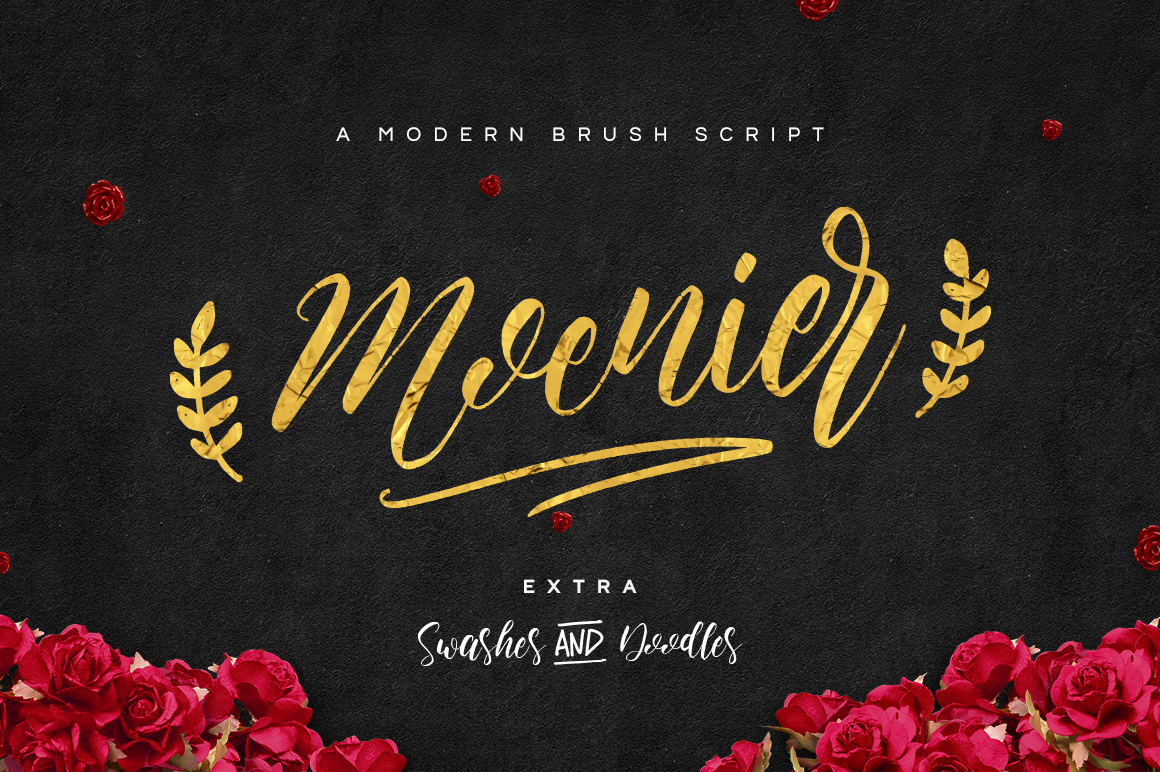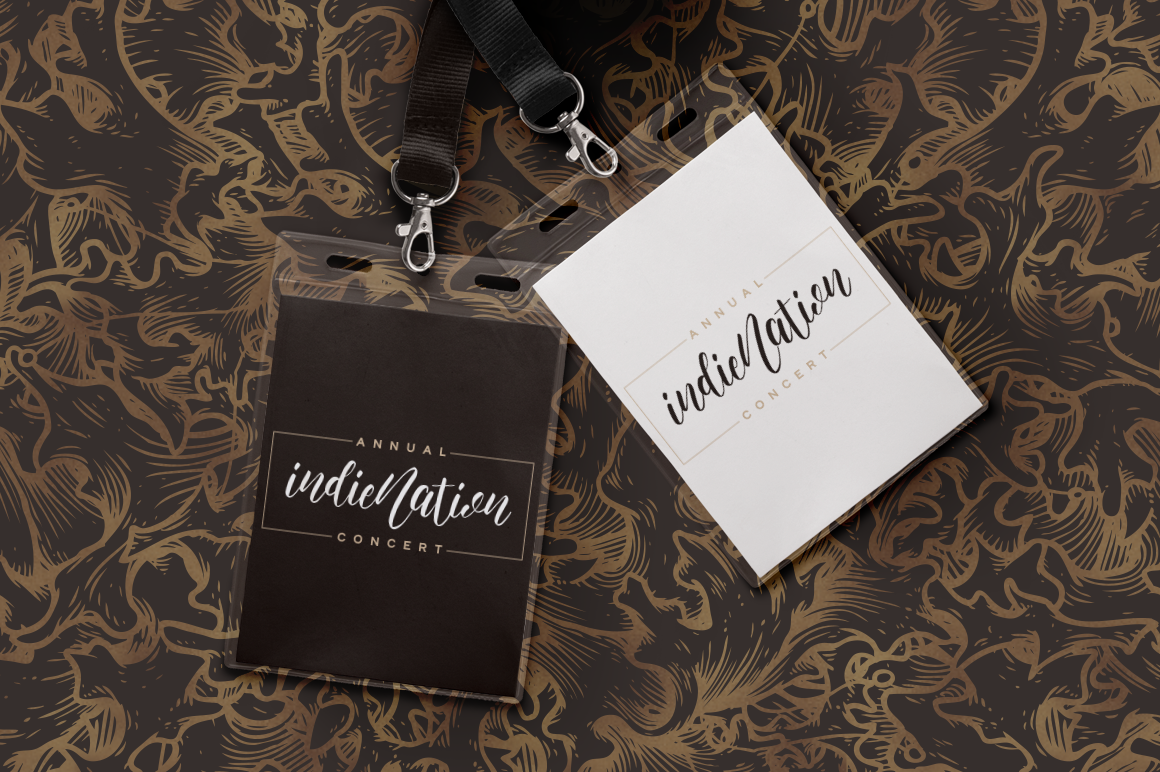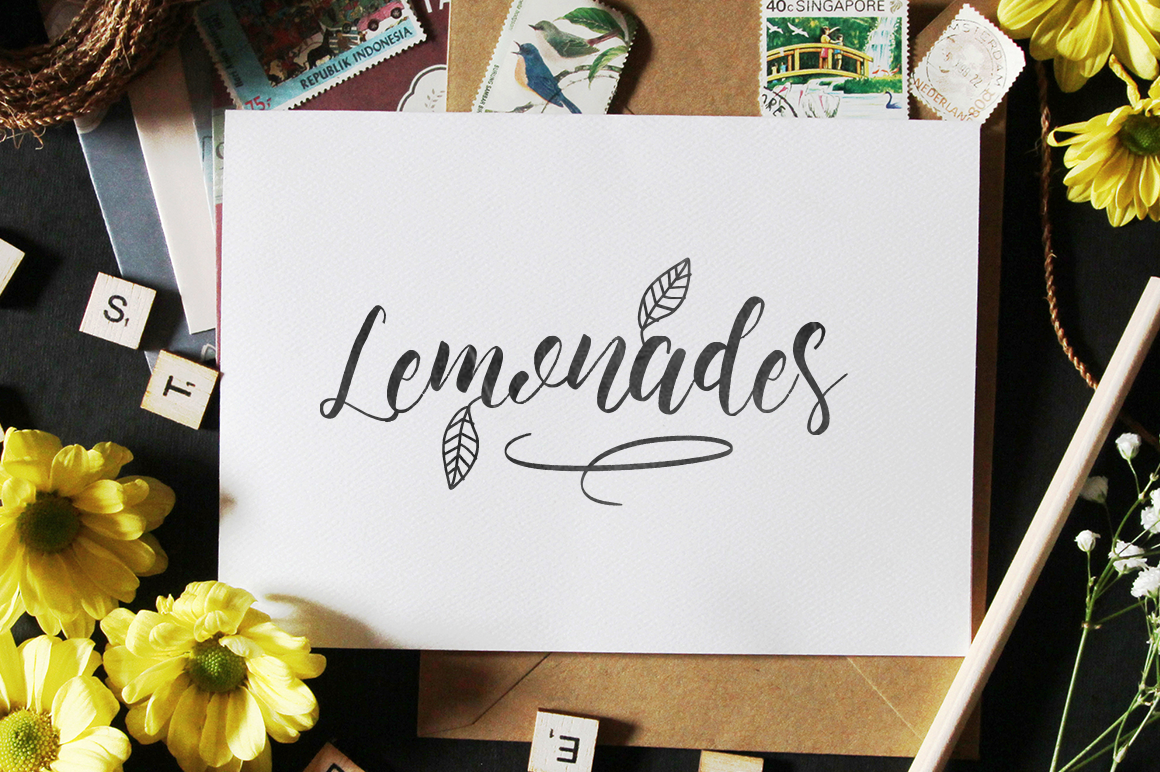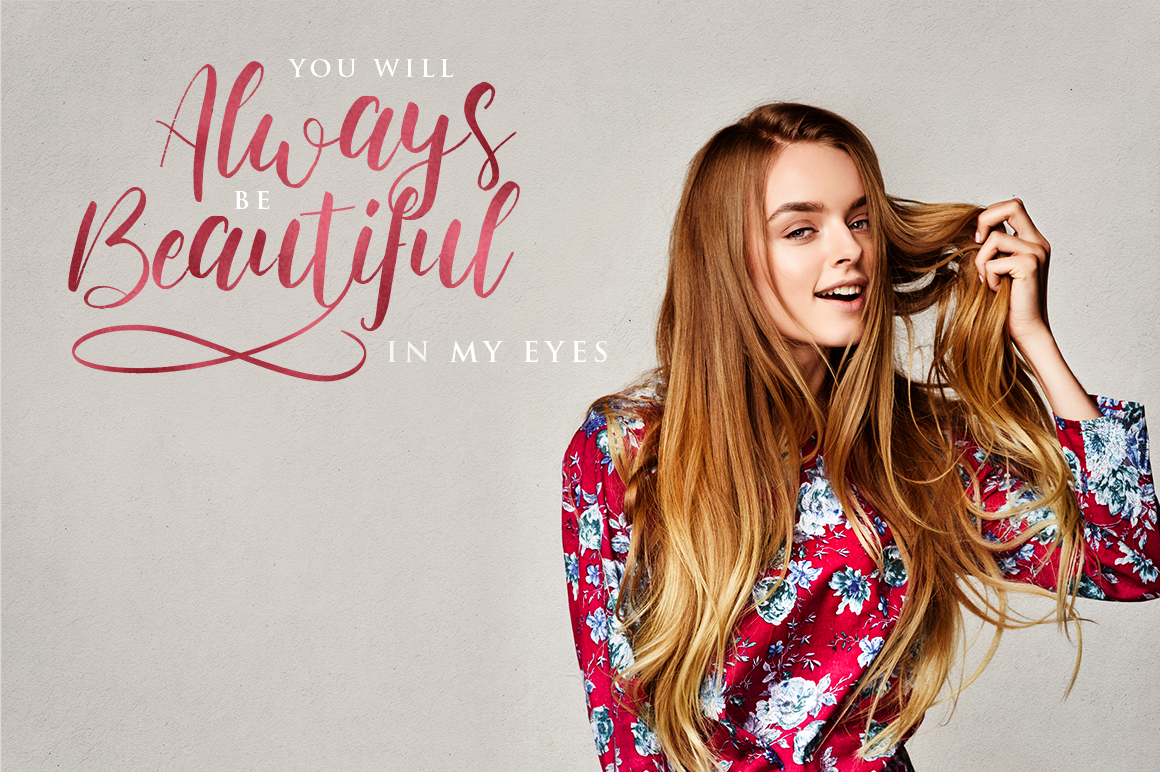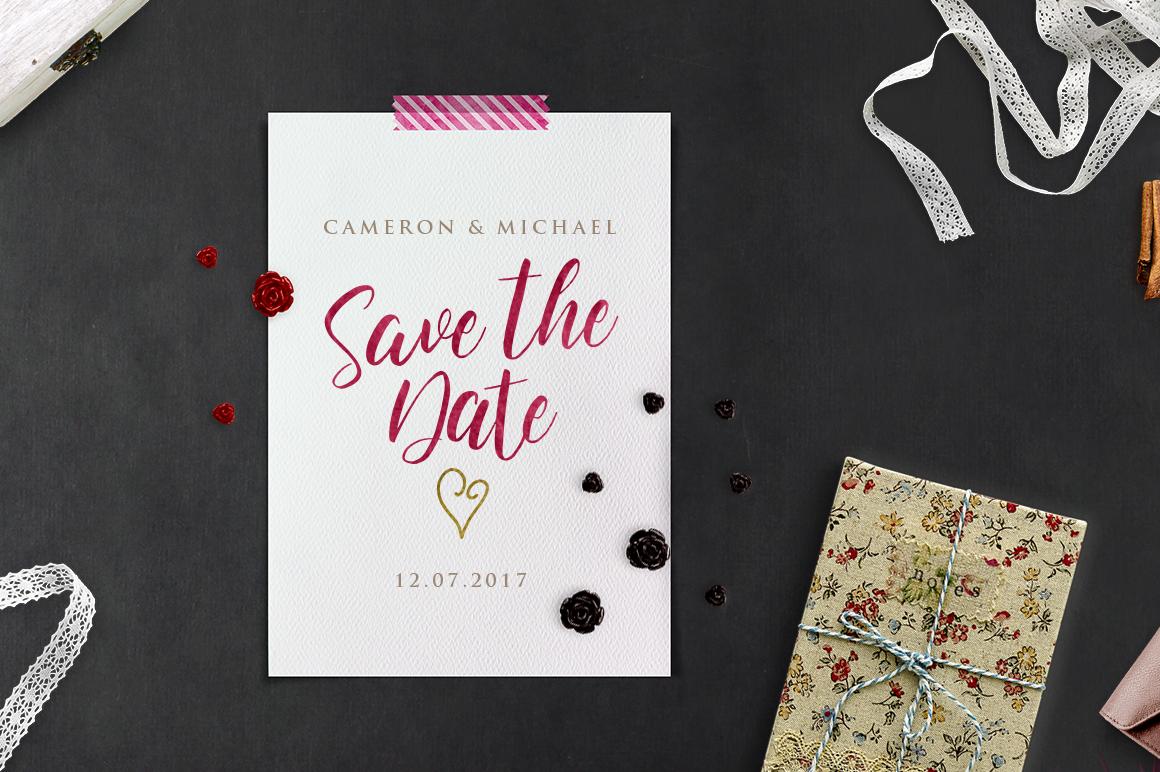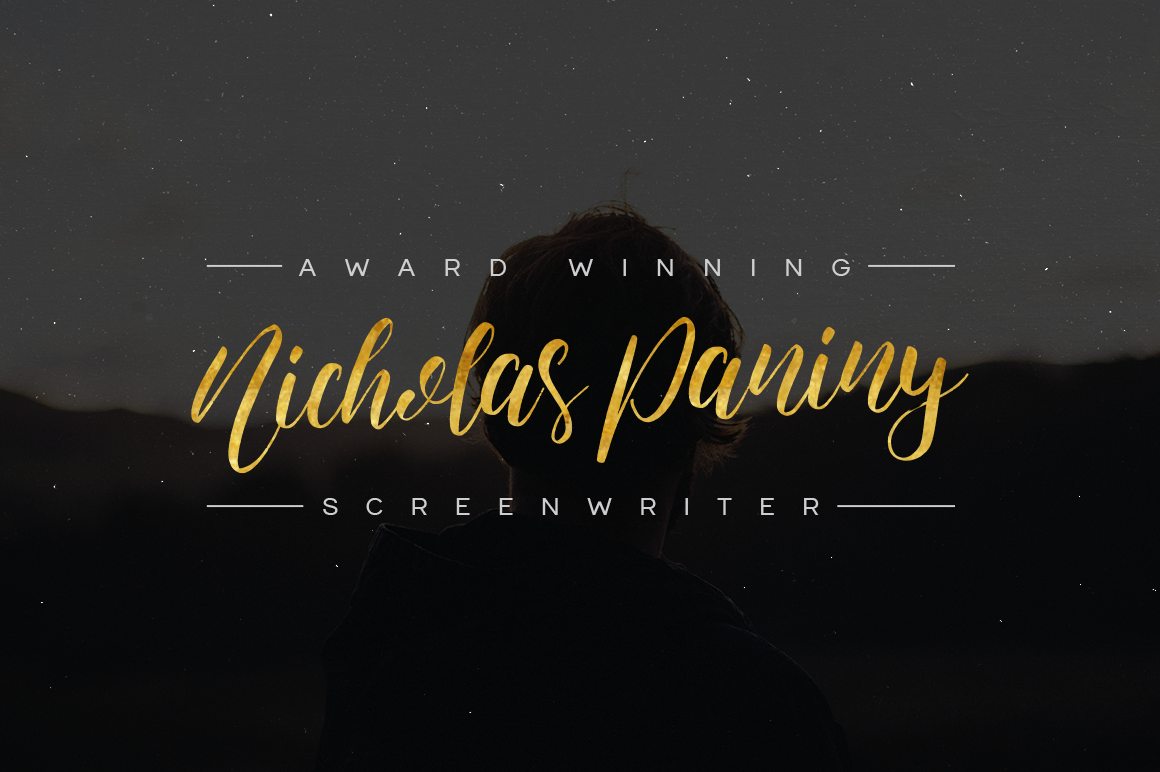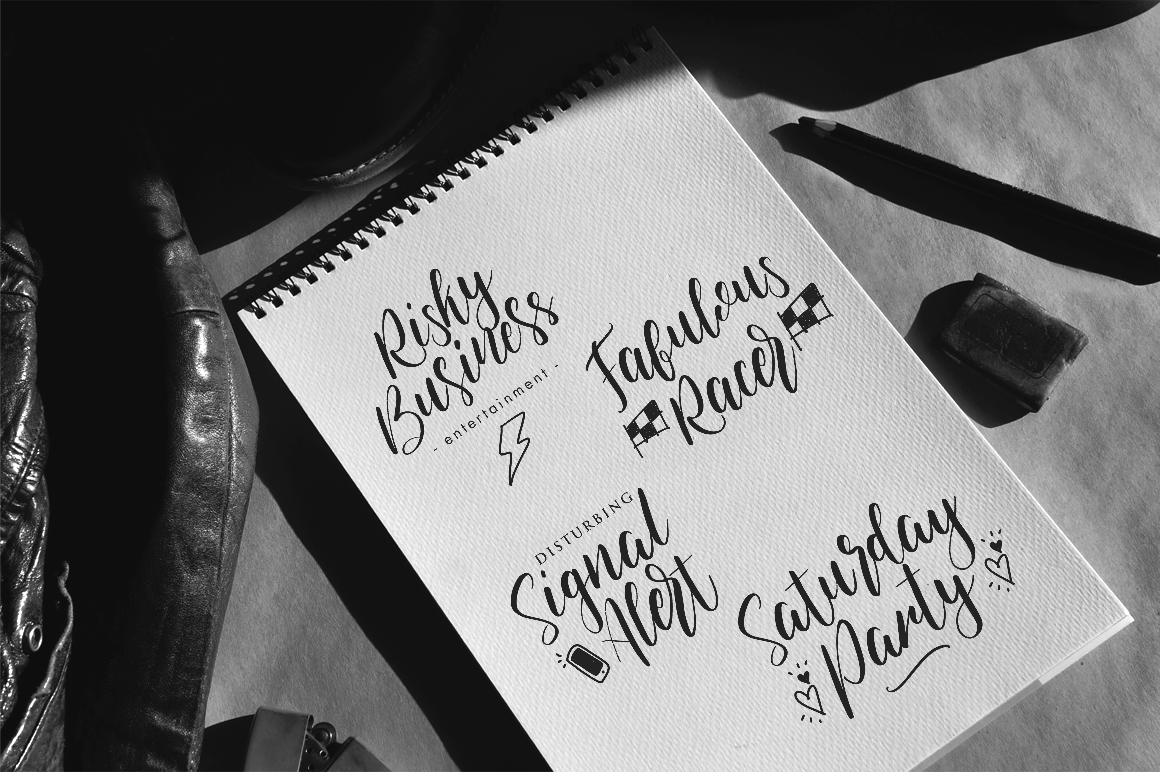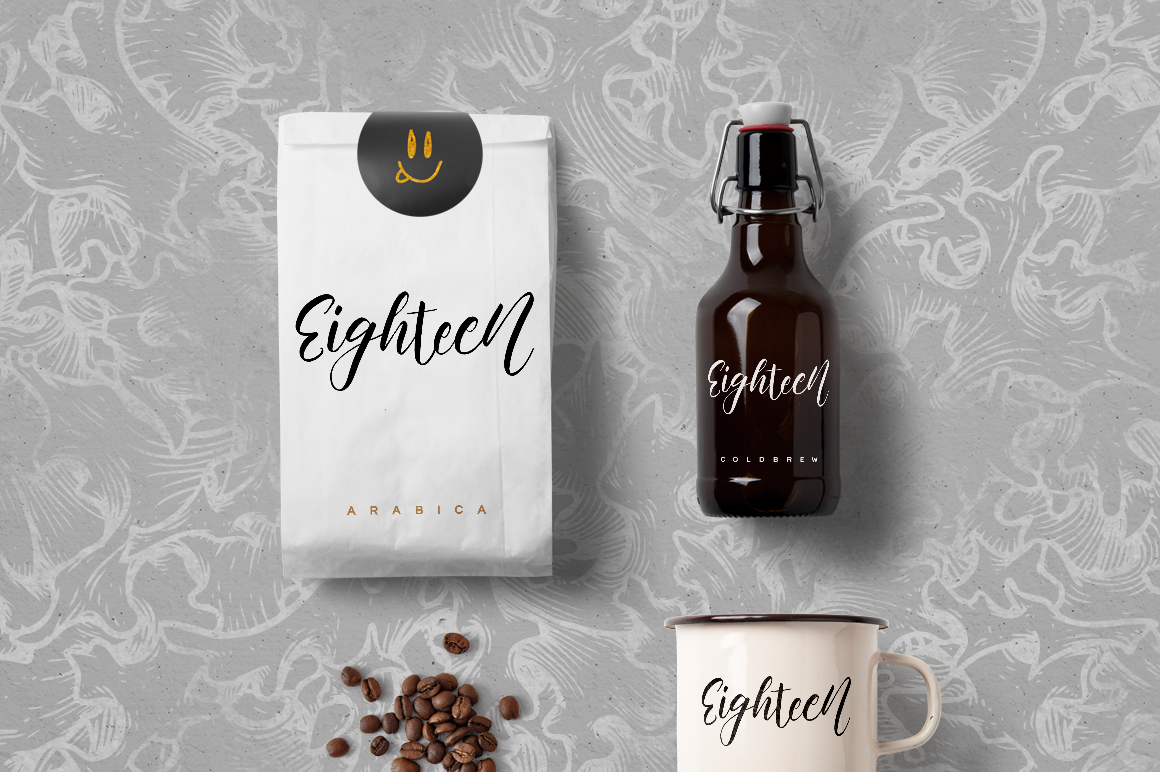
Moenier Font
About Moenier Font
“Moenier is a natural warm-hearted brush font crafted beautifully with precision. It has a flowing, compelling look that suggests stylishness, quality, and a handcrafted taste. Moenier also includes a full complement of alternates and ligatures. Also included is a set of swashes & doodles….for free!”